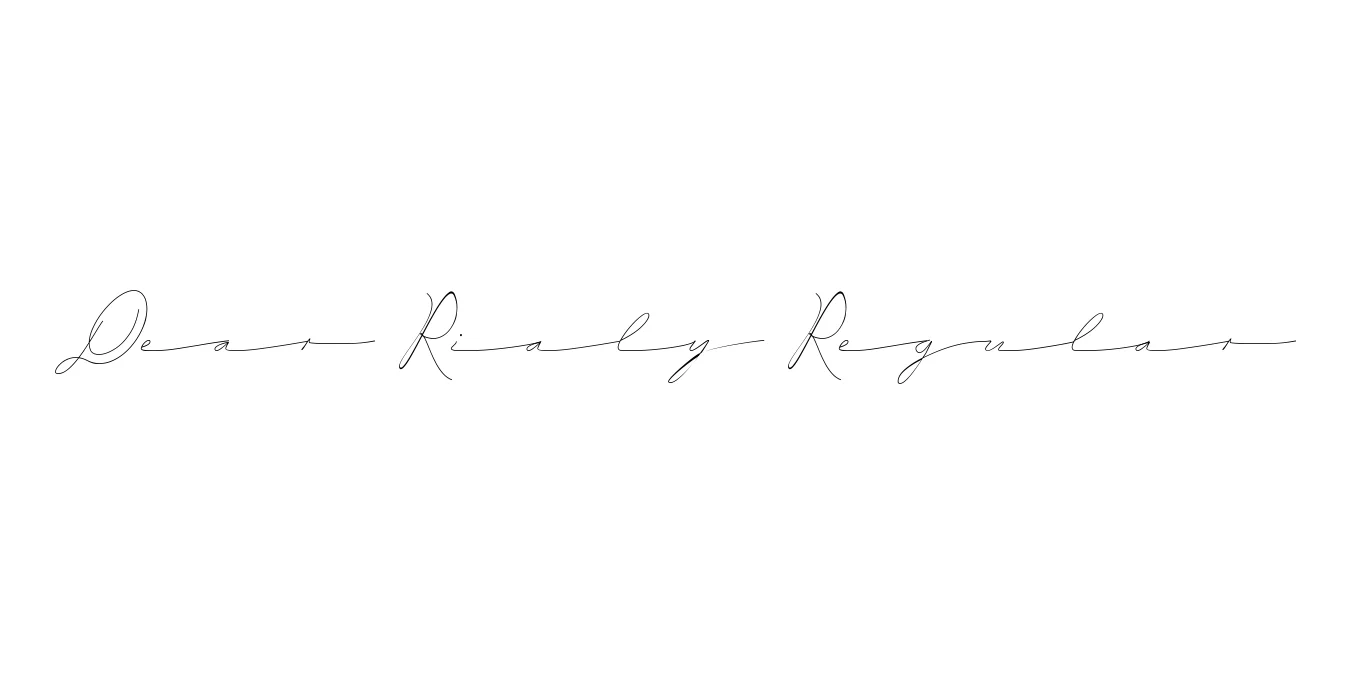
Dear Rialy Regular
Dear Rialy Regular is a sophisticated monoline script font that captures the essence of elegant handwriting. It features smooth, rhythmic strokes that convey a sense of personal touch and professional craftsmanship. This font is particularly favored for its balance between legibility and artistic flair, making it a staple for modern branding projects and high-end design layouts.
Developed by Letterena Studios, the font incorporates various stylistic alternates and swashes that allow designers to create unique typographic compositions. Whether used for social media graphics or formal invitations, its versatile nature ensures it stands out in both digital and print media, offering a romantic yet clean appearance that appeals to the lifestyle and wedding niches.
Dear Rialy Regular Best Uses
Perfect for creating elegant invitations, save-the-date cards, and personalized seating charts.
Ideal for high-engagement Instagram quotes, lifestyle blog headers, and Pinterest graphics.
Excellent for logo design, business cards, and establishing brand identity for boutique businesses.
Highly effective for cosmetic labels, artisan gift boxes, and boutique product tags.